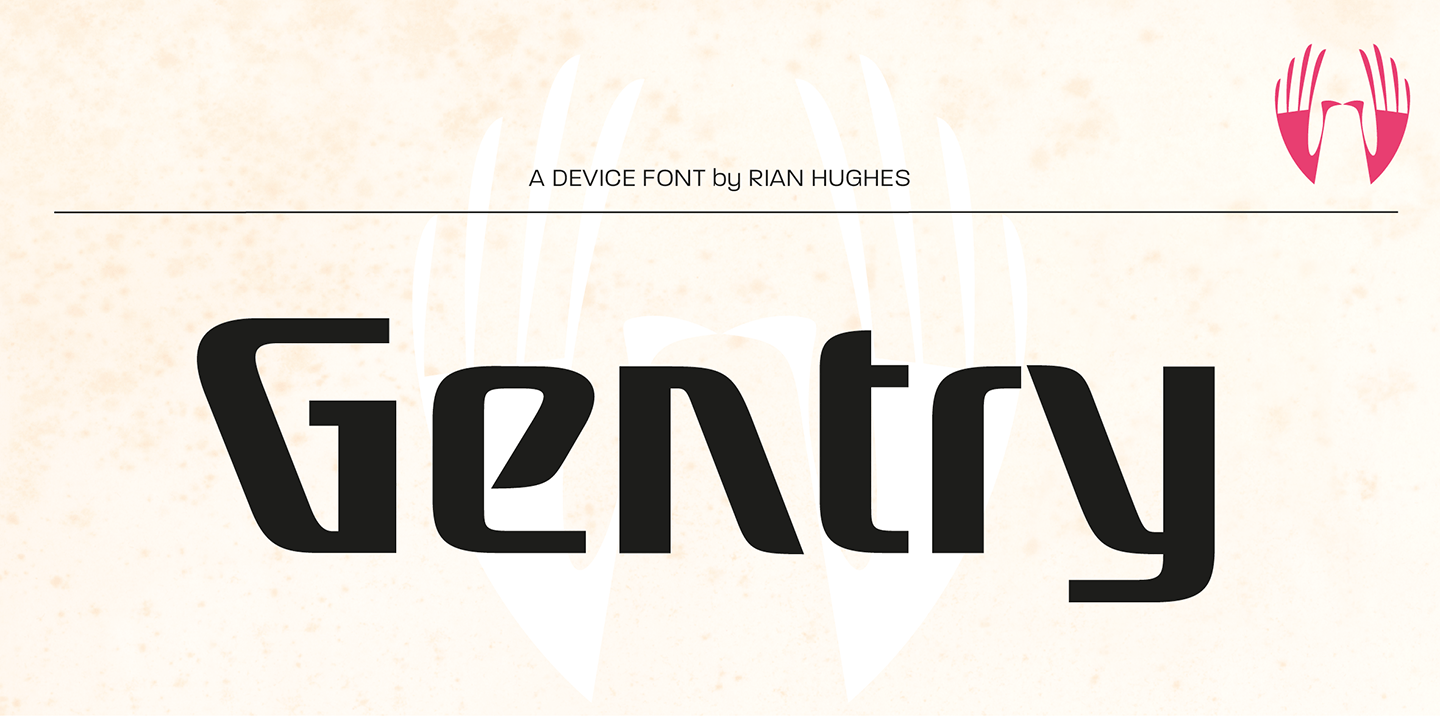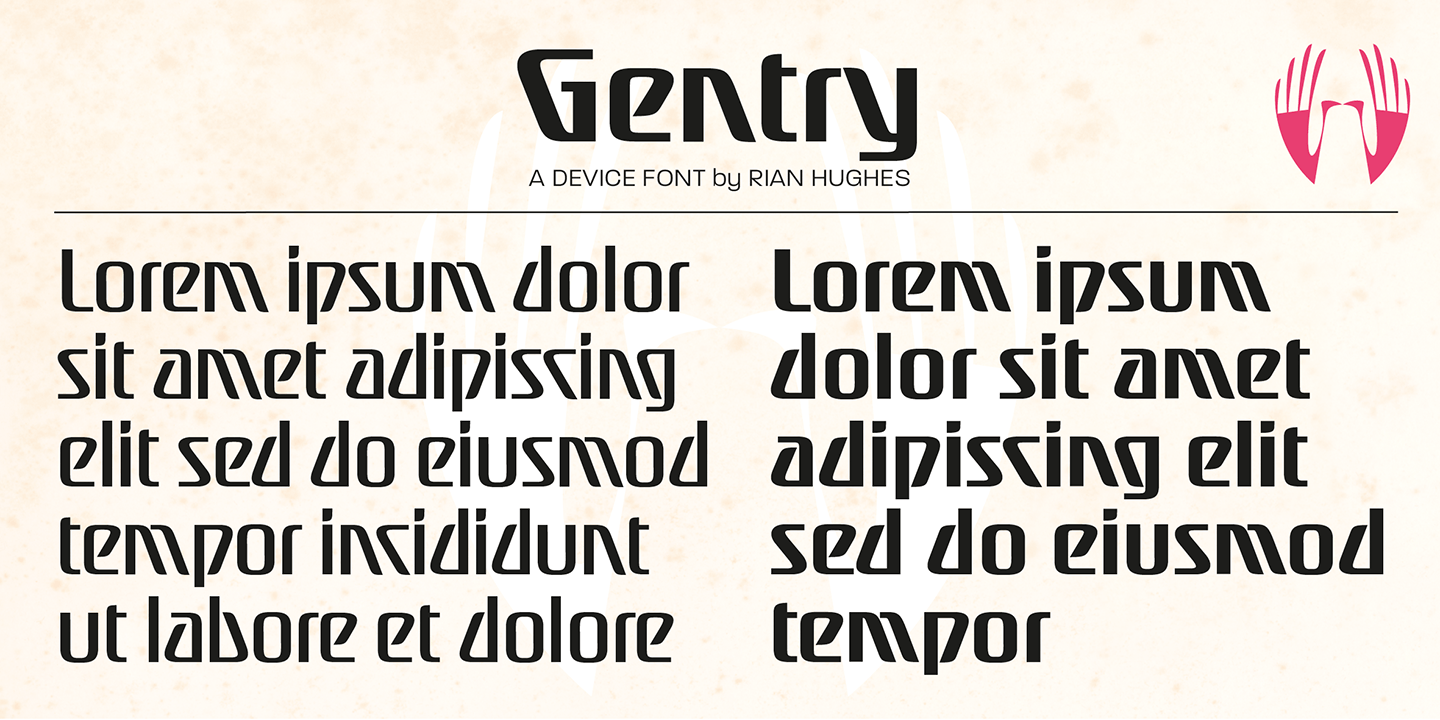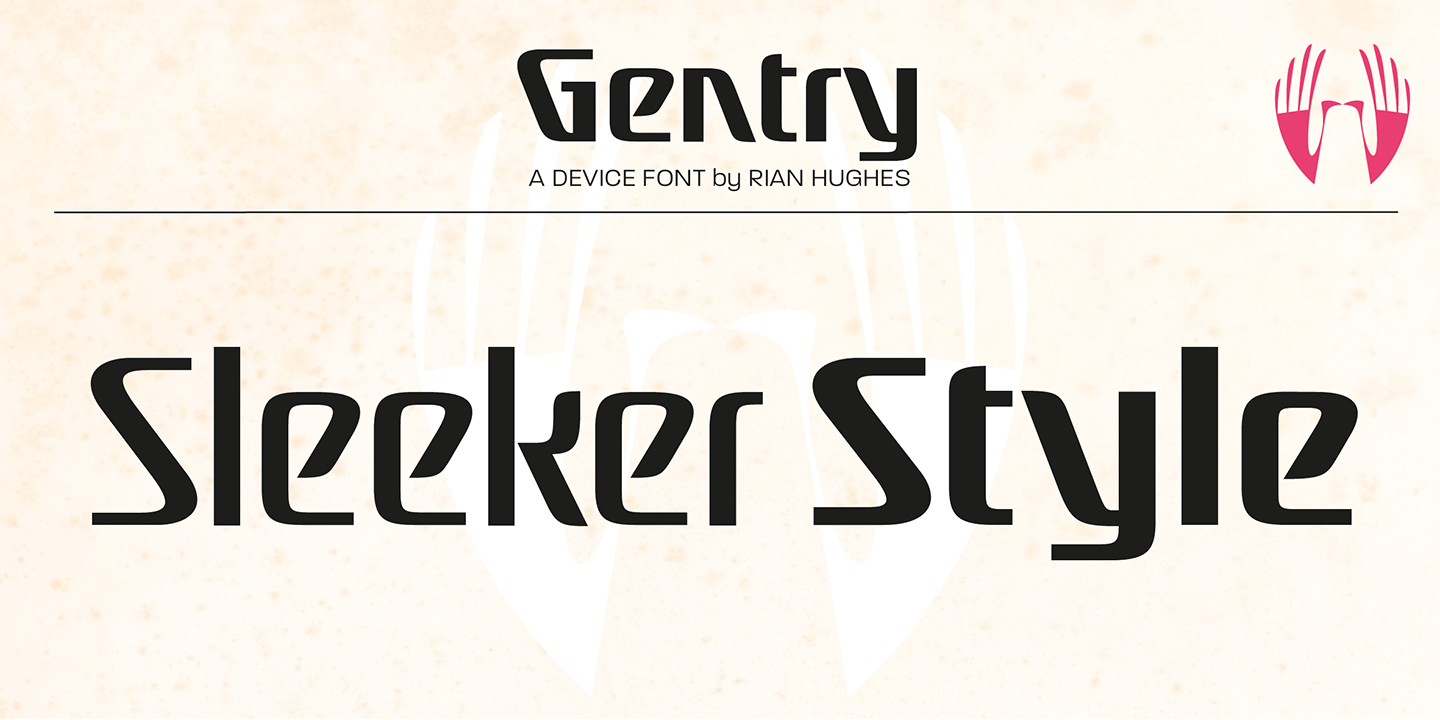
Gentry
Font Family by Device
With its strong diagonal emphasis, Gentry is a humanised techno face that manages to also incorporate some strong calligraphic touches.
Powerful in short and single-word settings.